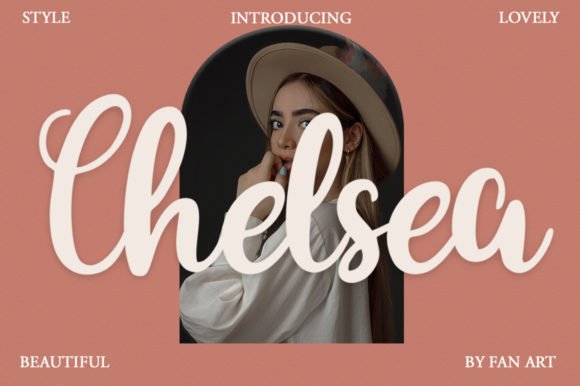
Discovering the Perfect Script: The Chelsea Font
There’s nothing quite like the thrill of stumbling upon the perfect font for your next design project. The click of the keyboard, the swoosh of the cursor, and suddenly, the entire piece comes together in a beautiful symphony of typography. For designers, this moment is pure magic, and it’s exactly what makes the Chelsea Font so special.
With its soft and sweet script style, the Chelsea Font is a masterclass in genuine and delicate character design. Whether you’re crafting a wedding invitation, a logo, or a promotional poster, this font is sure to bring a touch of elegance and sophistication to your work. And with its PUA encoding, accessing the amazing glyphs and ligatures is a breeze, giving you even more creative freedom to push the boundaries of your design.
- Unique Characteristic: Chelsea Font features a unique blend of modern and vintage elements, with a touch of elegance and sophistication.
Chelsea Font Review
As a designer, I was excited to try out the Chelsea font, but my experience was a mixed bag.
The Chelsea font has some nice qualities that make it a decent choice for certain projects:
- Its modern, sleek feel makes it perfect for contemporary designs.
- The font’s versatility allows it to work well in both digital and print formats.
- The bold and italic weights add some nice depth to the font, making it suitable for headings and emphasis.
However, the Chelsea font has some significant drawbacks that limit its usability:
- The font’s letterforms can be a bit too condensed, making it difficult to read at small sizes.
- The font’s x-height is somewhat inconsistent, which can affect readability.
- Lack of support for certain languages and characters may limit its use in global projects.
While the Chelsea font has some nice qualities, its limitations hold it back from being a top choice for most projects. With some refinement and attention to detail, it could be a solid option for designers. As it stands, I would recommend it for specific, high-end designs where its sleek feel can shine, but for most projects, I would look elsewhere.
Tips for Getting the Most Out of Chelsea Font
Here are some tips to help you get the most out of Chelsea Font:
- Use Chelsea Font for headings and titles to create a sophisticated and elegant look.
- Pair Chelsea Font with a sans-serif font for body text to create a clean and modern look.
- Experiment with different font sizes and styles to add emphasis and visual interest to your text. Alternatives to Chelsea Font for Designers
- Choose a high-quality paper stock for the stationery cards.
- Select a matching color scheme, such as monochromatic or pastel shades.
- Use Chelsea Font for the title or header, and a secondary font for the body text.
- Pair Chelsea Font with gold or silver foil accents for added luxury.
- Use a watercolor background or subtle texture to enhance the stationery’s aesthetic.
- Balance the elegant font with simple, clean lines and minimal graphics.
- Choose a distressed or worn texture for the menu board background.
- Select a color scheme that resembles aged paper or wood tones.